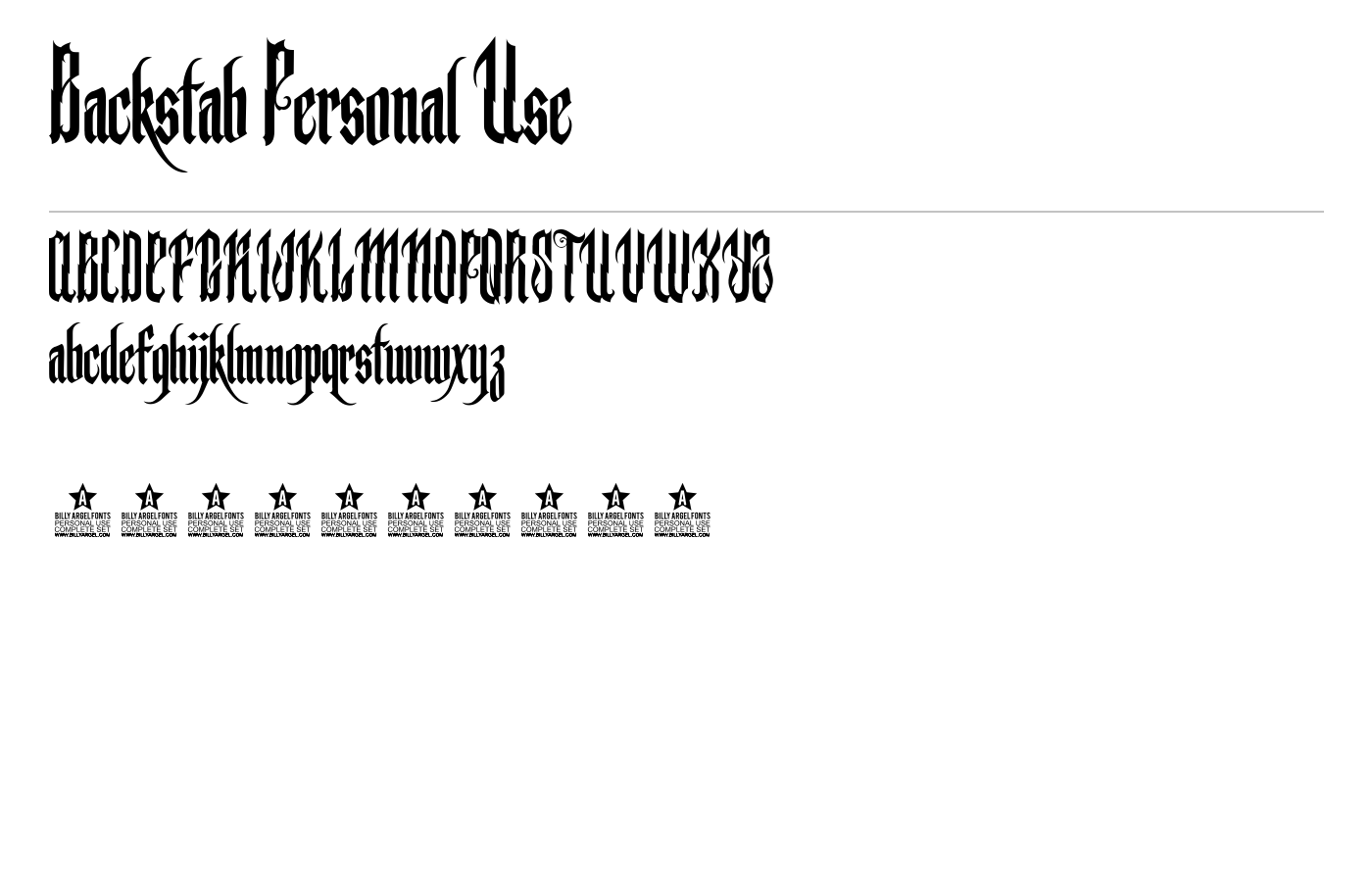
Backstab Personal Use is a bold, condensed blackletter font with sharp, dramatic strokes and a high contrast between thick and thin lines. Its intricate, gothic-inspired letterforms convey a strong, edgy personality perfect for creating striking headlines, logos, and designs that need a dark, vintage vibe. This font works well in branding and posters where a distinctive, rebellious look is desired.
Backstab Personal Use Font
About Backstab Personal Use Font
| Font family | Backstab Personal Use Font |